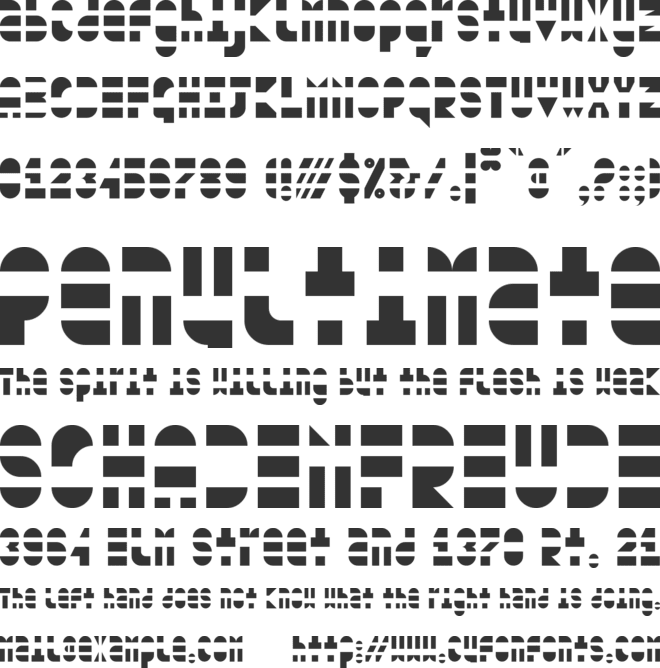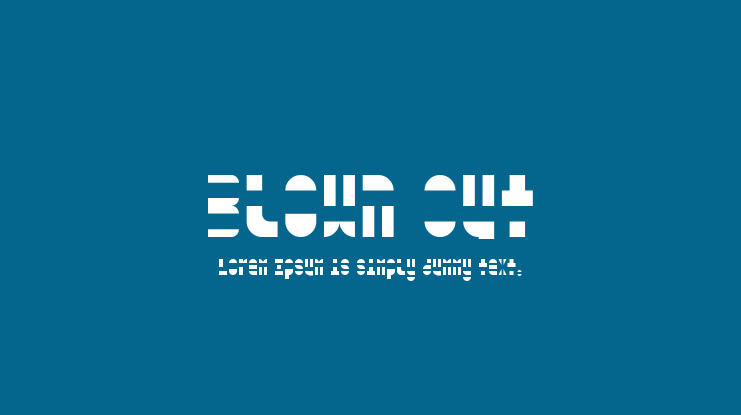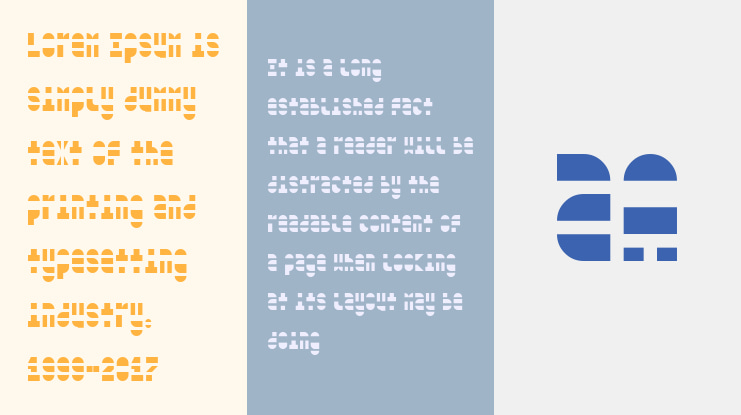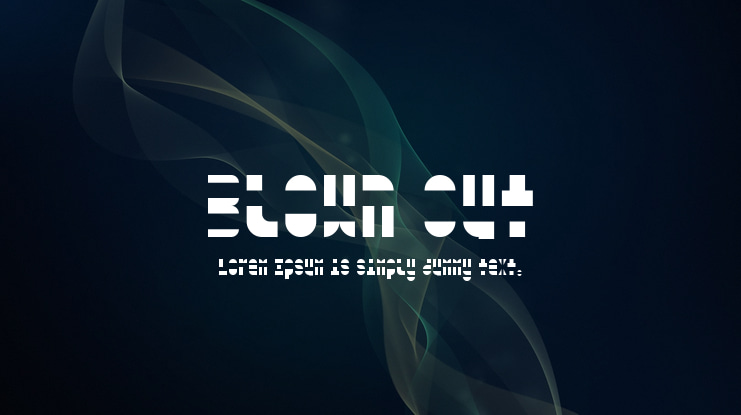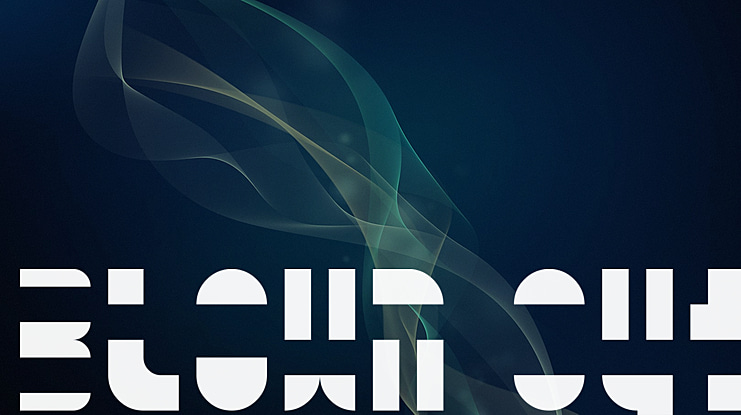
Blown Out Font
Blown Out is an SIL OFL Freeware font by Doug Peters (-yours truly, here).
I consider this an art font, and to me, font art. The characters have been abstracted, most being blown out in the middle, leaving the tops and bottoms of the characters behind so that they are still legible.
That said, the viewer does require more than a few characters to read it unless applied to a logo. Within a sentence, we have to slow down and actually read the text, deciphering it as we go, since the characters are abstracted and both cases are the same height.
I wonder if this will have the same effect as the font Forgetica, which has science behind it that shows by dropping parts of characters we slow down to read as opposed to scanning material and therefore remember it better.
Unfortunately, I have no such scientific studies behind me, I made this font specifically for art's sake.
It functions well though, as a fun, playful, heavy, minimalistic, decorative, white space heavy stencil display font that would be great for art posters, logos or as a novelty font.
It reminds me of the ornaments and bobbles that hang from the Christmas tree and someone has said it looked like toys on Christmas morning.